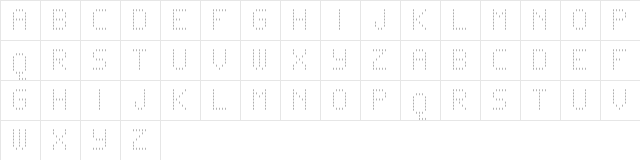
WLM Print Failed Regular
| Designer | Wolf Lambert |
Design Context for WLM Print Failed Typeface
WLM Print Failed is a composed and adaptable typeface that performs quietly and consistently across a wide range of design contexts.